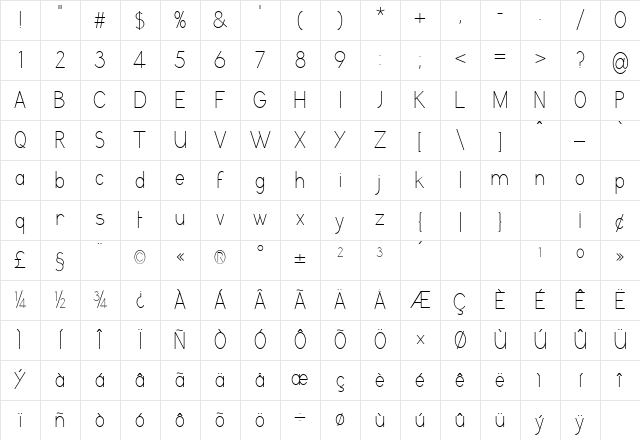
GrutchGrotesk Condensed Light
Foundry: Steeve GRUSON
Designer: Steeve GRUSON
Design Context for GrutchGrotesk
GrutchGrotesk takes a clean, functional approach - its unadorned letterforms prioritise legibility and work reliably across screen and print environments. Its slender proportions lend an understated elegance to any composition. Its narrow stance lets it pack a punch even in space-constrained designs.
Font Pairing: Pair GrutchGrotesk with a medium or bold serif for headlines - the weight contrast creates an elegant, high-end feel.
Pro Tip: Use GrutchGrotesk tightly set in headlines and banners - its condensed proportions make it ideal for maximum impact in minimum horizontal space.